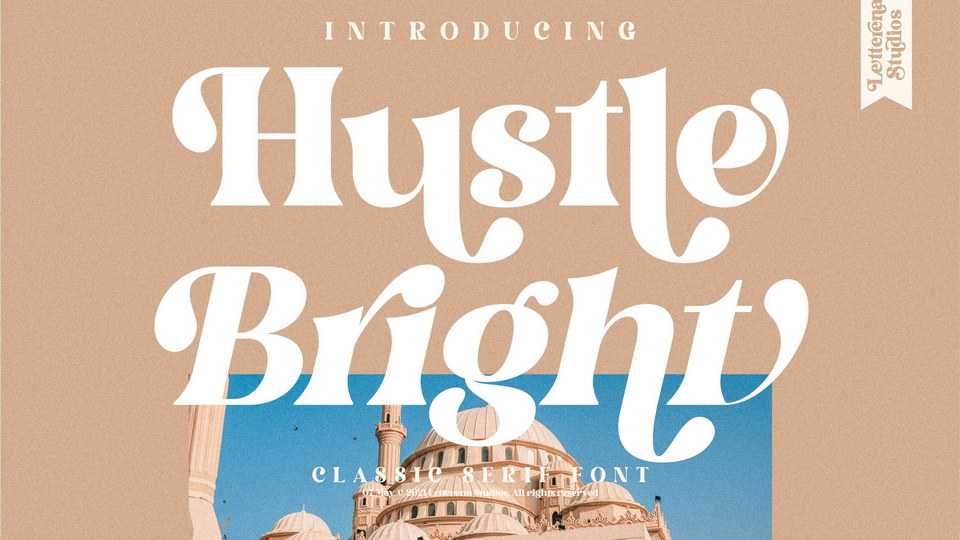
Download Hustle Bright font, a luxury, elegant and bold serif typeface. Hustle Bright was particularly crafted for those who need a trendy and refreshing look to their designs.
Designer: Letterena Studios